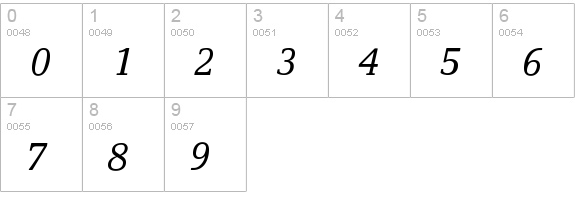
DemosEF-MediumItalic Font Details
The DemosEF-MediumItalic font exudes elegance and sophistication with its sleek, slanted design. Perfect for adding a touch of modern flair to any project, this font strikes the perfect balance between professionalism and creativity. Its medium weight and italic styling make it versatile for a wide range of applications, from branding and advertising to editorial design and more. And the best part? DemosEF-MediumItalic is available for free download at FontsMarket.com. So go ahead and elevate your design projects with this stylish and contemporary font today!